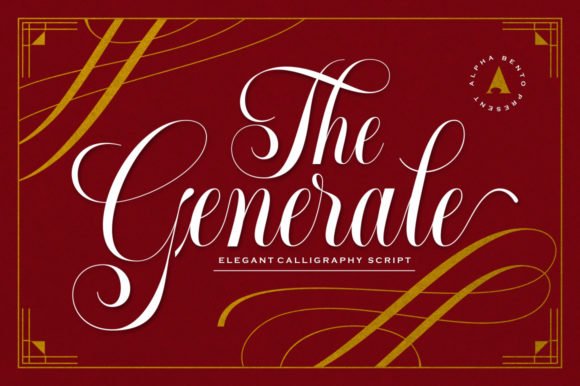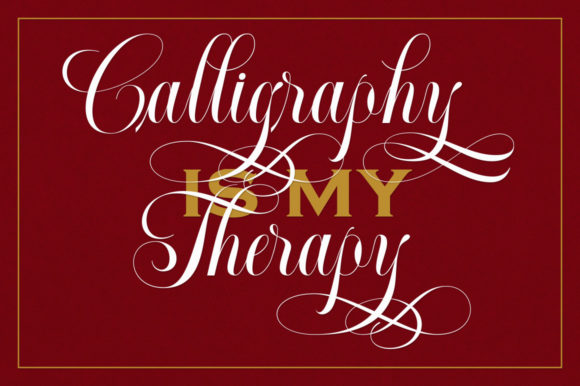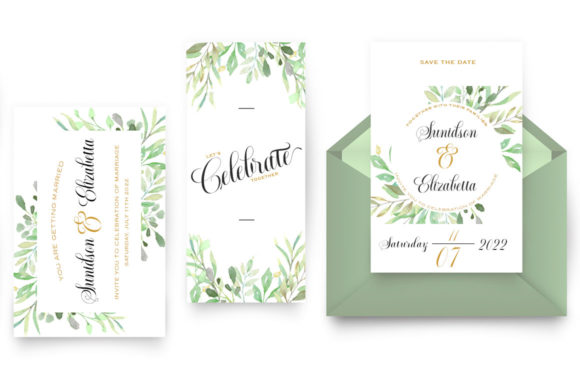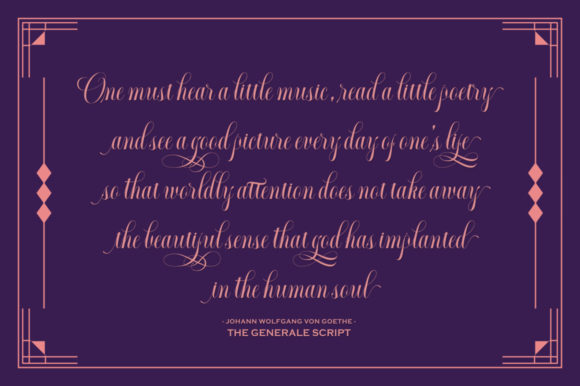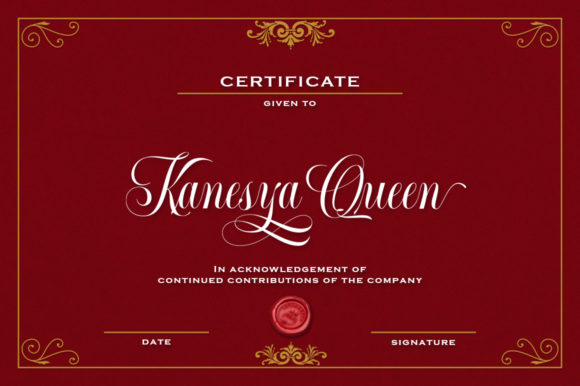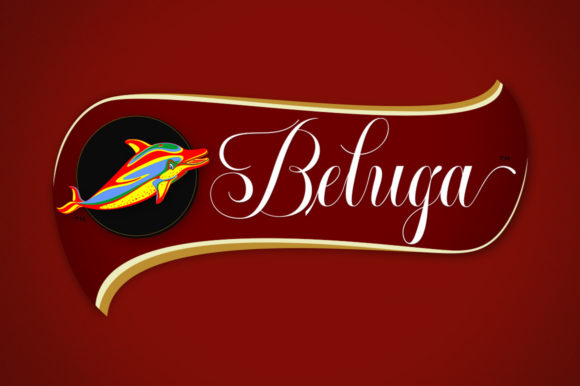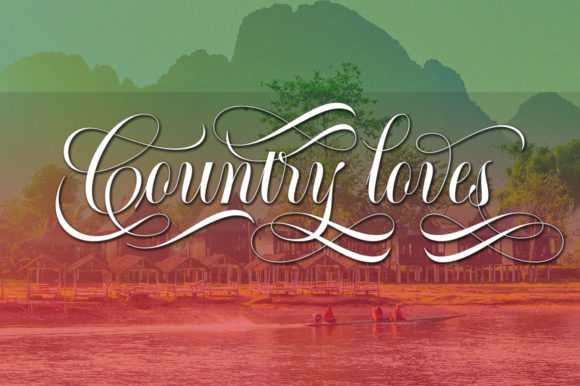
Unleash Your Creativity with the Generale Script Font
Have you ever stared at a blank page, trying to come up with the perfect phrase to capture the essence of a moment? The blank page stares back, taunting you with its emptiness. But what if you could infuse your words with elegance and sophistication, making them truly unforgettable?
Enter the Generale Script Font, a beautiful script font that combines timeless classic calligraphy with a modern twist. This exquisite font is perfect for designers who want to add a touch of sophistication to their projects. With its impeccable form and contemporary atmosphere, the Generale Script Font is a valuable asset for any design portfolio.
What sets the Generale Script Font apart is its PUA encoding, allowing you to access all of the beautiful glyphs and swashes with ease. This means you can add an extra layer of depth and personality to your designs, making them truly stand out from the crowd.
Generale Script Font Key Features
- Font style: Script, Calligraphy
- Unique characteristics: Elegant, cursive design with subtle flair and movement, ideal for creative and artistic applications
Generale Script Font Review
I recently had the chance to work with the Generale Script Font, and overall, I’m quite pleased with its performance. Here are some of the things that worked well: ✨
- Unique style: The Generale Script Font has a distinct, elegant feel that’s perfect for projects that need a touch of sophistication.
- High legibility: Despite its script nature, the font is surprisingly easy to read, even at smaller sizes.
- Good for headings: The font’s bold, dramatic flair makes it ideal for headings and titles.
However, there are a few limitations to keep in mind: ⚠️
- Limited versatility: While the font is great for certain projects, it may not be the best choice for more straightforward, modern designs.
- Not suitable for small text: While it’s legible at larger sizes, the font becomes less readable at smaller sizes.
Overall, I think the Generale Script Font is a solid choice for designers looking to add a touch of elegance to their projects. With its unique style and high legibility, it’s a great option for headings and titles. However, it may not be the best choice for more minimalist designs or small text.
Generale Script Font Practical Application Guide
Tip: Use Generale Script Font for titles, headings, and quotes to add a touch of elegance to your design.
Tip: Use Generale Script Font for custom logos, invitations, and other creative projects.
Tip: Use Generale Script Font for titles, headings, and body text to add a touch of sophistication to your presentation or document.
Generale Script Font is perfect for:
Custom logos and branding
Book covers and publishing materials
Any project that requires a touch of elegance and sophistication
Alternatives to Generale Script Font
Playfair Display is a luxurious, high-end script font ideal for use in magazine headlines, wedding invitations, and luxury branding. It features elegant connections and a sophisticated feel.
Compared to Generale Script Font, Playfair Display has a more refined and elegant look, making it suitable for high-end branding and publishing applications.
Lobster is a fun, cursive font with a casual, laid-back feel. It’s perfect for use in social media graphics, advertisements, and web design. It’s a great choice for creating a friendly, approachable vibe.
Lobster is more playful and casual compared to Generale Script Font, making it suitable for applications where a friendly, approachable tone is desired.
Carolyna Pro is a modern script font with a sleek, sophisticated feel. It’s ideal for use in branding, advertising, and web design, particularly for fashion and lifestyle applications.
Compared to Generale Script Font, Carolyna Pro has a more modern and sleek look, making it suitable for applications where a contemporary feel is desired.
Alex Brush is a elegant, handwritten font with a romantic feel. It’s perfect for use in wedding invitations, birthday cards, and other special occasions. It’s a great choice for creating a warm, inviting atmosphere.